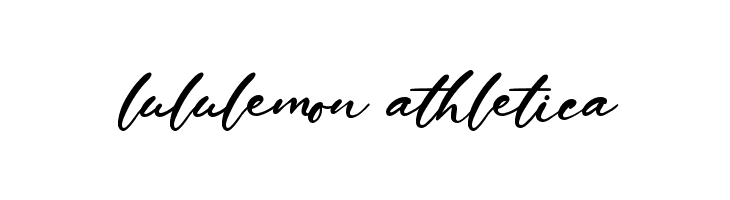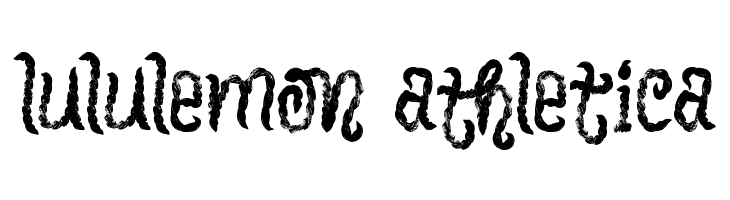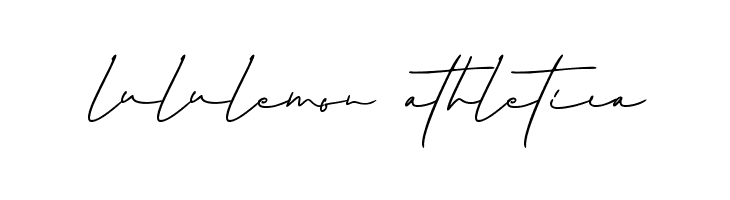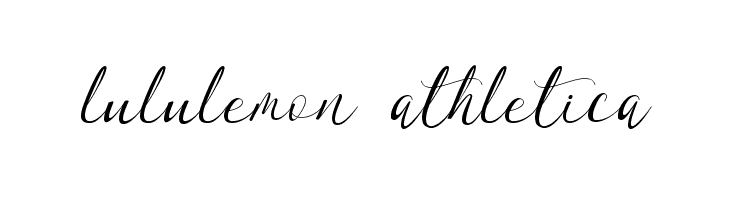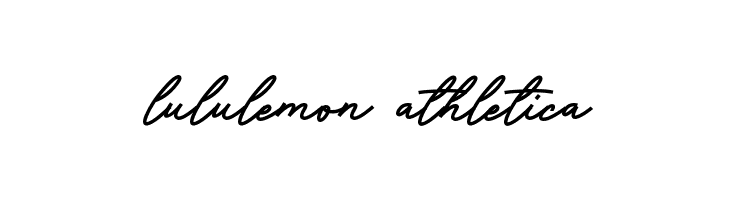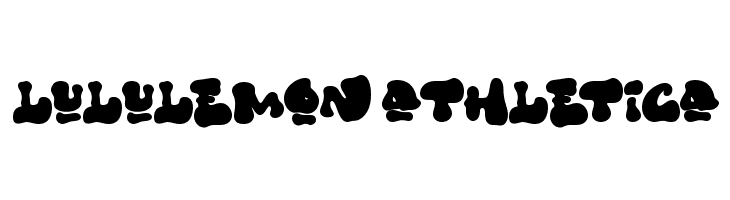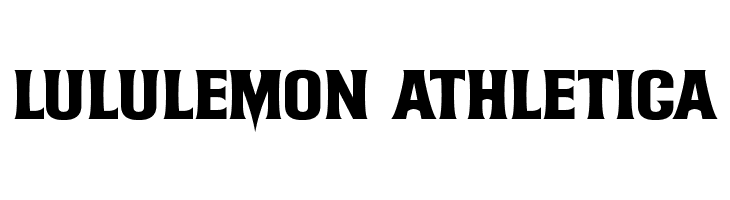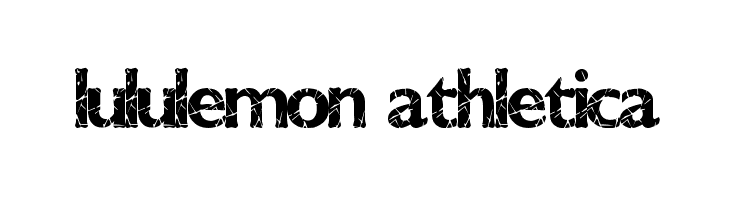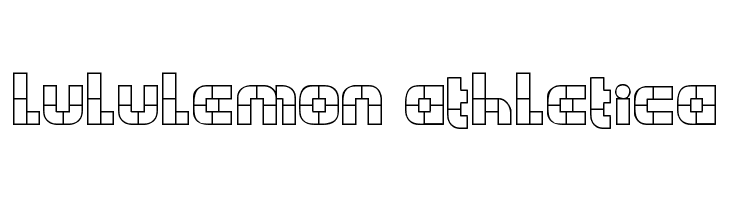
• Wild Jackal
( Fonts by Masa Aska Sanurumi )
A bold, playful font with a bubbly, cartoonish style and exaggerated curves.
• Winderlust Personal Use Only !!
A flowing, cursive handwritten font with elegant, connected letters.
• WindowCrash
A bold, shattered glass effect font with jagged, fragmented characters.
• Winne Vinne
A graceful and fluid script font with elegant, connected strokes.
• Witch Magic
( Fonts by Joseph Dawson )
A bold, gothic-inspired font with sharp, angular edges and high contrast.
• Witches Friend
A bold, playful font with a whimsical, hand-drawn style.
• Witches Friend Script
A whimsical, cursive script font with elegant, flowing strokes.
• Witchness
A decorative, textured font with whimsical curls and a hand-drawn feel.
• With Stalk
An elegant, flowing script font with graceful, connected letterforms.
• WODENBLOKS
( CROLrene )
A geometric, block-style font with intricate line patterns.